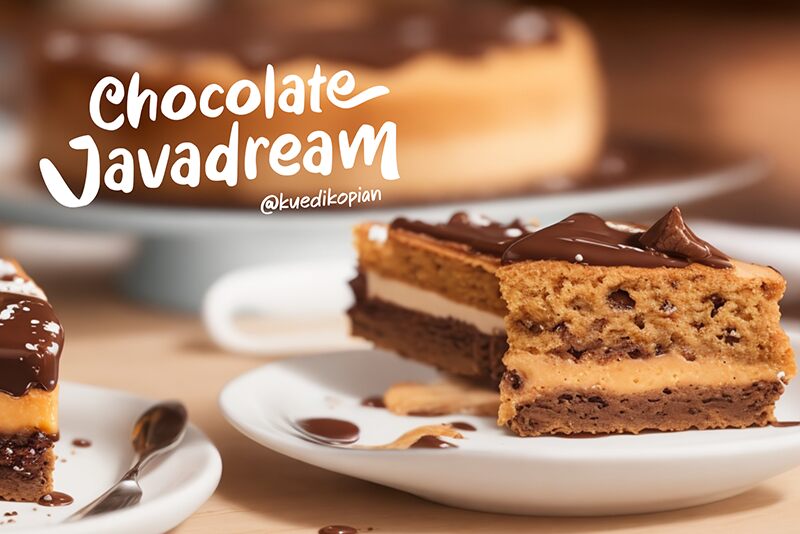
Umkm
Umkm font is a free handwritten font designed by DumadiStyle, filled with organic forms and expressive strokes. Umkm combines bold characters, casual handwriting, rounded ends, and a modern style in each letter for results that are readable and clear. The approachable nature of the letters makes it a perfect option for designing projects that interest readers from the young to the old.
Create an enjoyable atmosphere for your book covers and introduce authors with Umkm or design distinctive magazine designs that instantly pop. It can also be used for stationery items such as notebooks or greeting cards in addition to branding projects.